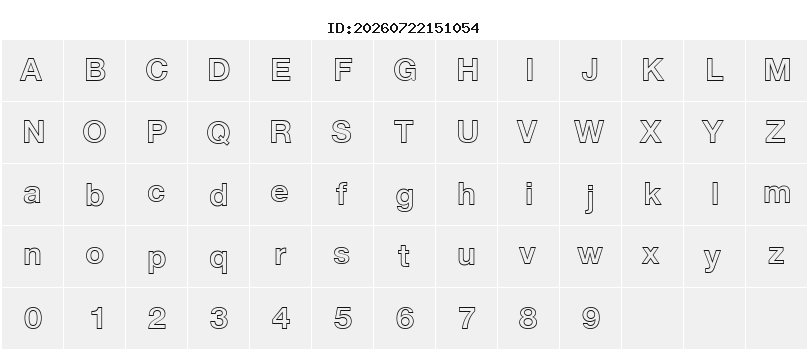
HelveticaNeue LT 75 BdOutline Preview
• Font Name: HelveticaNeue LT 75 BdOutline
• Full Font Name: Helvetica LT 75 Bold Outline
About HelveticaNeue LT 75 BdOutline.ttf
HelveticaNeue LT 75 BdOutline.ttf is a modern, elegant sans-serif font designed for ultimate readability and visual harmony. Perfect for branding, headlines, web design, and print materials.